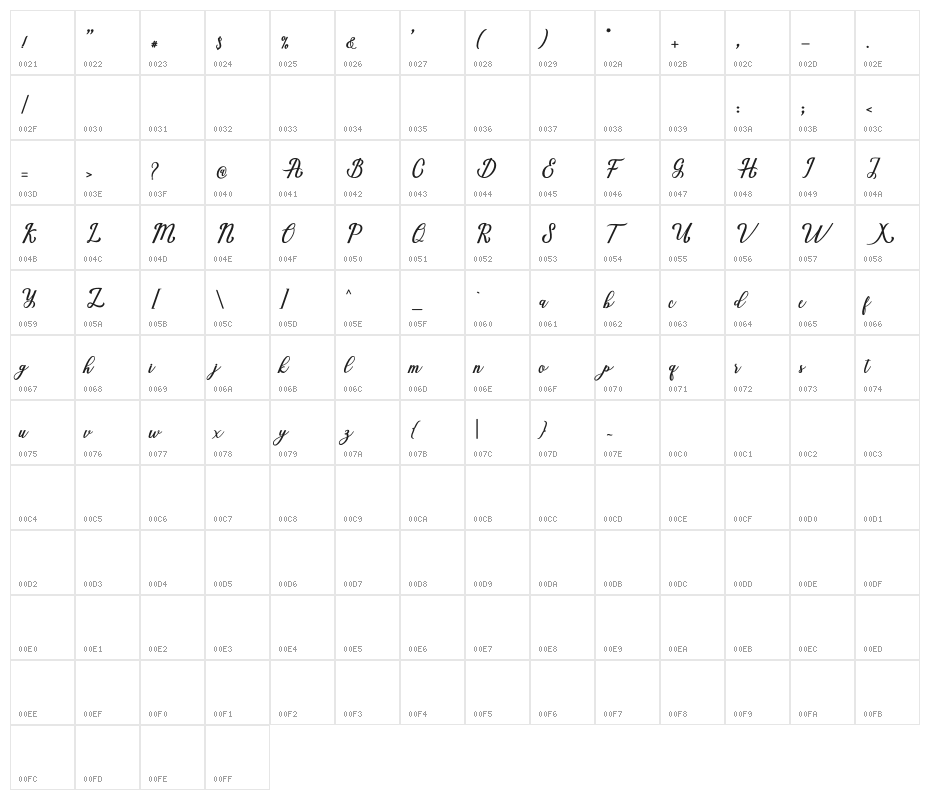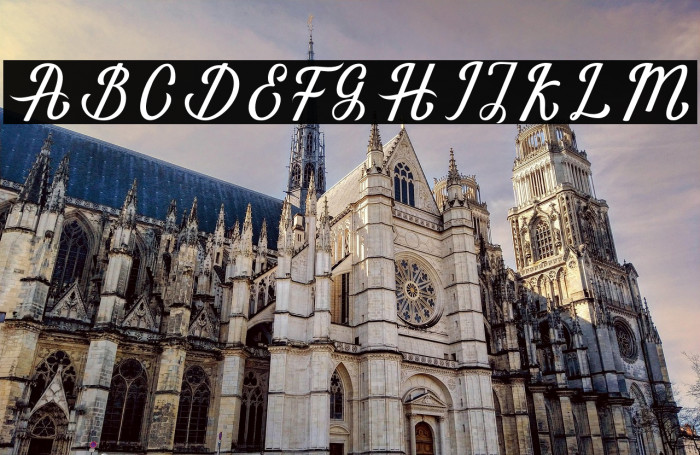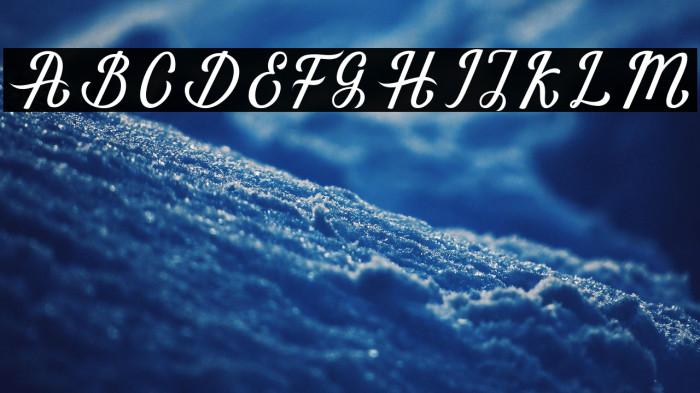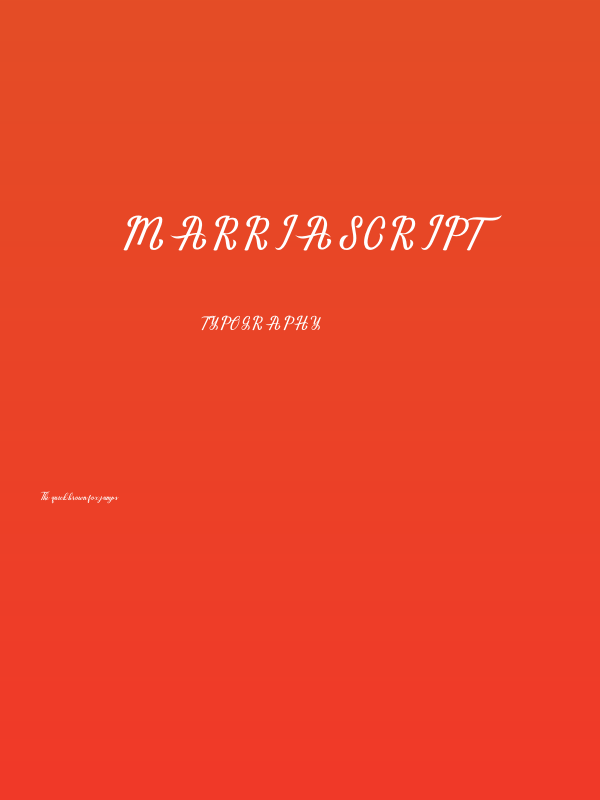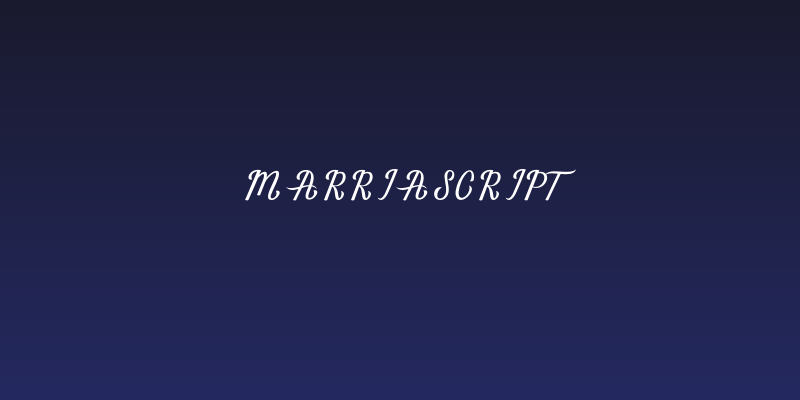
MarriaScript Font
MarriaScript Description
This elegant script font features a flowing, cursive style with smooth, connected letters that mimic the fluidity of handwriting. The uppercase letters are ornate, with graceful loops and swashes, while the lowercase letters maintain a consistent rhythm and balance. The numerals and special characters are designed to complement the overall aesthetic, adding a touch of sophistication. The font's delicate strokes and moderate contrast make it suitable for formal invitations, branding, and decorative purposes. Its timeless appeal and classic design elements ensure versatility across various applications.
| Overall Style | Classic |
| Use Case | Logos, Invitations, Decorative Text |
| Proposed Projects | Ideal for wedding invitations, elegant branding, greeting cards, and decorative signage. |